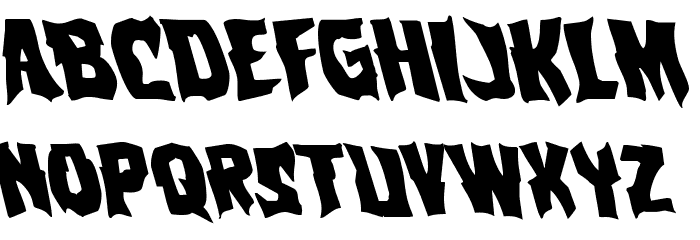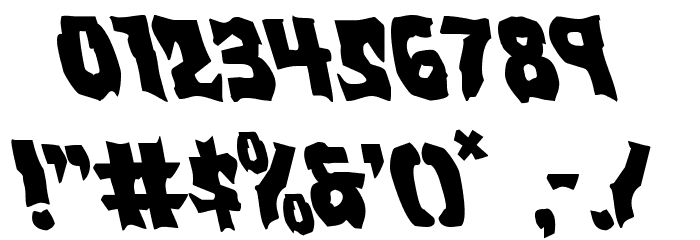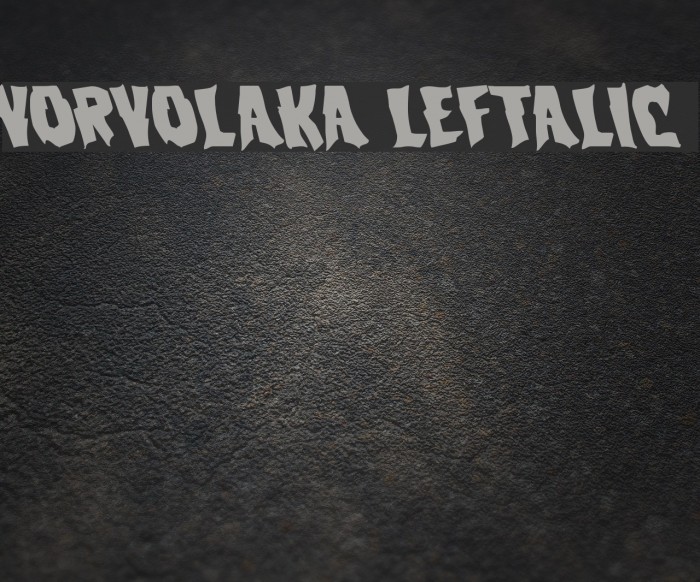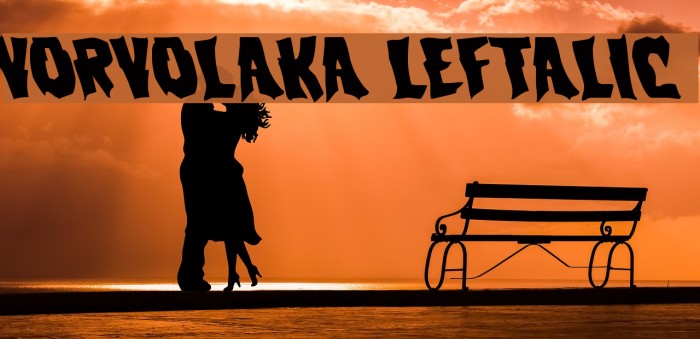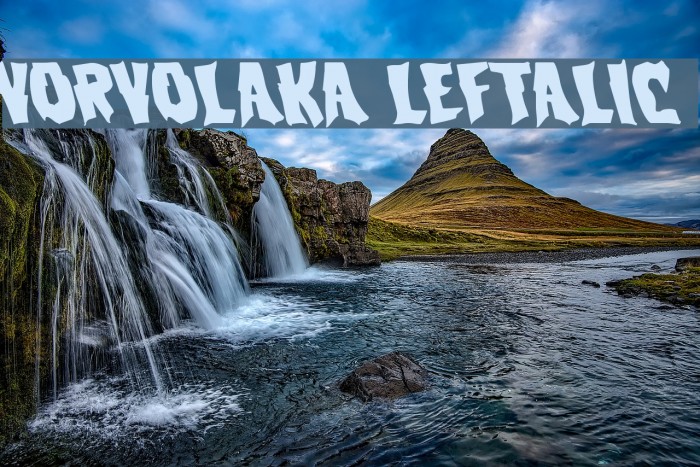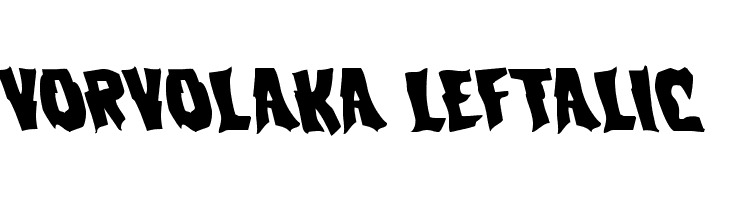
Vorvolaka Leftalic Font
This font features a bold and dynamic design with a distinct leftward slant, giving it a unique and edgy appearance. The characters are heavily stylized with sharp, angular edges and a slightly distorted form, creating a sense of movement and energy. The uppercase and lowercase letters maintain a consistent style, while the numbers and special characters follow the same bold and striking aesthetic. The overall look is reminiscent of graffiti or street art, making it ideal for projects that require a bold and unconventional typeface.
A bold, left-leaning font with sharp, angular edges and a dynamic, graffiti-like style.
- Font: Vorvolaka Leftalic
- Proposed Projects: Ideal for use in posters, album covers, streetwear branding, and any project that seeks to convey a sense of rebellion or urban edge.
- Overall Style: Modern, Edgy